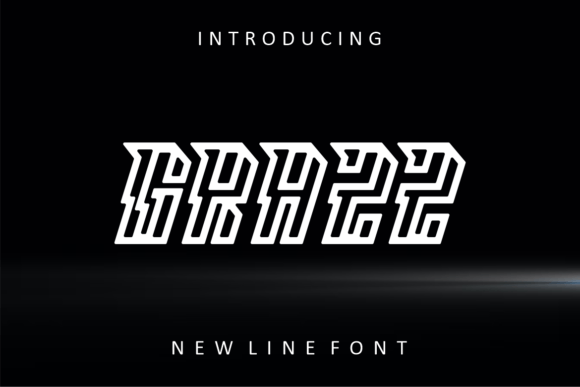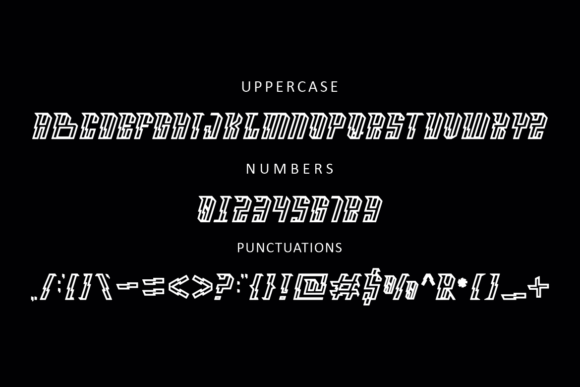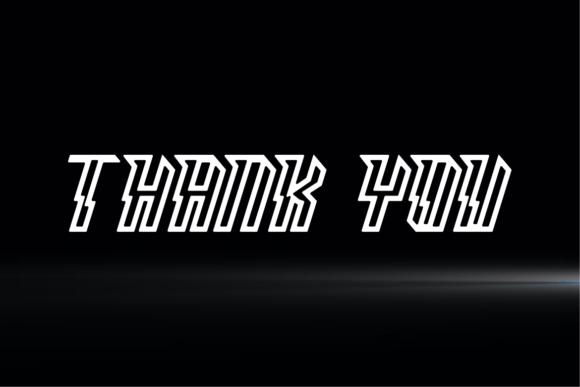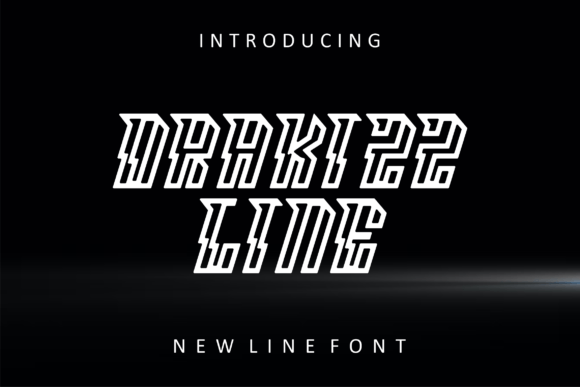
Drakizz Line Font: Elevate Your Designs with a Modern and Cool Display Font
In the world of design, fonts play a crucial role in conveying the message and aesthetic of a project. For those seeking a bold and refreshing look, the Drakizz Line Font is an excellent choice. This modern and cool display font is specifically crafted for designers, crafters, and anyone looking to add a unique touch to their creations.
What is Drakizz Line Font?
Drakizz Line Font is a contemporary display font designed to make a statement. Its sleek lines, bold strokes, and modern aesthetic make it perfect for a variety of design projects, from branding and advertising to packaging and digital media. The font’s unique style is sure to grab attention and leave a lasting impression.
Key Features of Drakizz Line Font
- Modern and Cool Design: Drakizz Line Font boasts a fresh and modern design that’s perfect for designers looking for a unique and stylish font.
- Bold and Refreshing Look: The font’s bold strokes and sleek lines create a refreshing look that’s sure to elevate your designs.
- Easily Customizable: The font is easily customizable, allowing you to adjust the size, color, and style to fit your design needs.
Uses of Drakizz Line Font
Drakizz Line Font is versatile and can be used in a variety of design projects, including:
- Branding and Logo Design: Create a bold and memorable logo with Drakizz Line Font.
- Advertising and Marketing: Use the font in advertising and marketing materials to grab attention and convey a modern aesthetic.
- Packaging Design: Add a touch of modern style to your packaging designs with Drakizz Line Font.
- Digital Media: Use the font in digital media, such as social media graphics, blog posts, and website headers.
Benefits of Using Drakizz Line Font
By using Drakizz Line Font, designers and crafters can benefit from:
- Unique and Modern Aesthetic: The font’s modern design ensures your creations stand out from the crowd.
- Improved Readability: The bold and clear design of Drakizz Line Font ensures excellent readability, even at small sizes.
- Time-Saving: The font’s versatility and customizability save time and effort in the design process.
- Professional Look: Drakizz Line Font gives your designs a professional and polished look, perfect for showcasing your work.